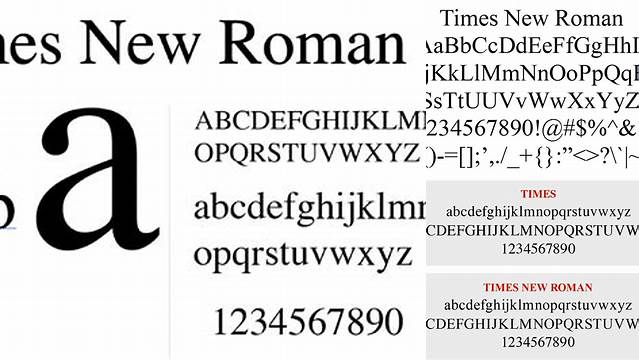
Time New Roman: The Font You Need To Know
Hey guys! Ever wondered about that one font that seems to be everywhere? You know, the one that's classic, maybe even a little…controversial? We're talking about Time New Roman, of course! This font has a seriously interesting story, and it's way more versatile than you might think. So, let's dive deep into everything Time New Roman, from its history to how you can use it like a pro. Get ready to become a font aficionado!
History of Time New Roman
So, where did Time New Roman even come from? It wasn't just poofed into existence, you know! Its origins are pretty fascinating, actually. Back in the early 1930s, the British newspaper The Times wasn't too happy with their existing typeface. They thought it was a bit clunky and not super readable. Thus began the quest for a new font that was both elegant and easy on the eyes. Stanley Morison, a typographic consultant, was brought in to tackle this challenge. He, along with the artist Victor Lardent, meticulously crafted what would become Time New Roman. The design was heavily influenced by a font called Plantin, but with some key tweaks for enhanced readability. Think of it as Plantin's cooler, more newspaper-friendly cousin. The font made its debut in The Times in 1932 and quickly gained popularity. It was designed to be space-efficient, meaning more words could fit on a page – a big deal for newspapers! Plus, its clean lines and classic serif style gave it a sophisticated feel.
Stanley Morison and the Creation of Time New Roman
The brains behind Time New Roman, Stanley Morison, was a total typography guru. This guy lived and breathed fonts! He understood the nuances of letterforms and how they impacted readability and visual appeal. Morison's approach was rooted in historical research, studying classic typefaces to inform his designs. He believed that a great font should be timeless and functional, not just trendy. His collaboration with Victor Lardent was key to bringing Time New Roman to life. Lardent, a skilled artist in The Times' advertising department, meticulously drew the letterforms, translating Morison's vision into a tangible design. Together, they created a font that balanced tradition and innovation, resulting in a typeface that has stood the test of time (pun intended!). Morison’s influence extends far beyond just Time New Roman; he shaped the way we think about typography and its role in communication. He emphasized clarity and legibility, principles that are still relevant in design today.
Time New Roman's Debut in The Times Newspaper
Imagine the buzz when Time New Roman first hit the newsstands! It was a big deal for The Times newspaper, which had been using the same typeface for decades. The switch to Time New Roman was a bold move, signaling a commitment to modernizing their look and improving readability for their readers. The initial reception was overwhelmingly positive. Readers praised the font's clarity and elegance. It was like a breath of fresh air for the newspaper, giving it a more contemporary feel while still maintaining its authoritative tone. This successful debut in The Times was crucial for Time New Roman's widespread adoption. It proved that the font was not only visually appealing but also highly functional for print media. The association with a prestigious publication like The Times also lent credibility and prestige to the font, solidifying its place in typographic history. This marked a significant shift in newspaper design, influencing other publications to consider the importance of typeface in their overall presentation.
Impact and Popularity of Time New Roman
After its grand debut, Time New Roman didn't just fade into the background; it exploded in popularity! It became the go-to font for all sorts of publications, from books and magazines to academic papers and official documents. Its clean, classic look made it incredibly versatile, fitting in seamlessly in a wide range of contexts. Part of its appeal was its availability. Thanks to its inclusion in Microsoft Windows, Time New Roman became a standard font on computers around the world. This meant that pretty much anyone could use it, which further fueled its ubiquity. But its popularity also sparked some debate. Some designers argued that its overuse made it a bit…boring. Others defended its timelessness and readability. Love it or hate it, there's no denying that Time New Roman has had a massive impact on the world of typography. It has shaped the way we read and write, and its legacy continues to influence design today.
Characteristics and Design Elements
Okay, let's get a little nerdy about the nitty-gritty details of Time New Roman. What makes it tick? What are its defining features? Well, first off, it's a serif font, meaning it has those little decorative strokes at the ends of the letters. These serifs are what give it that classic, traditional look. But Time New Roman isn't just any serif font. It has specific proportions and letterforms that contribute to its readability. The x-height (the height of lowercase letters) is relatively large, making it easier to distinguish between letters. The contrast between thick and thin strokes is also carefully balanced, creating a harmonious and legible appearance. Think of it as the Goldilocks of fonts – not too fancy, not too plain, just right for a wide range of applications. Its design is rooted in the principles of classical typography, emphasizing clarity, balance, and timelessness. This makes it a solid choice for situations where you want to convey professionalism and authority.
Serifs and Their Role in Readability
Those little serifs on Time New Roman? They're not just for decoration, guys! They actually play a crucial role in how we read. Serifs help to guide the eye across the page, creating a visual flow that makes text easier to follow. Think of them as tiny breadcrumbs leading your eyes along each line. This is especially important for long blocks of text, like in books or articles, where readability is key. While sans-serif fonts (fonts without serifs) can be great for headlines and shorter pieces of text, serifs tend to be preferred for body text because they reduce eye strain and improve comprehension. Time New Roman's serifs are carefully designed to be both functional and aesthetically pleasing, contributing to the font's overall elegance and legibility. They're a key part of what makes Time New Roman such a classic and enduring choice for print.
X-Height and Its Impact on Legibility
The x-height might sound like a technical term, but it's actually a pretty important factor in font legibility. It refers to the height of the lowercase letters in a typeface, relative to the uppercase letters. Time New Roman has a relatively large x-height, which means that the lowercase letters are proportionally taller. This makes them easier to distinguish from each other, especially at smaller sizes. A larger x-height contributes to better readability because it reduces the amount of white space within the letters, making them more distinct. This is particularly helpful when reading long passages of text, as it minimizes eye strain and improves comprehension. Fonts with smaller x-heights can sometimes appear cramped and less legible, especially in body text. Time New Roman's well-balanced x-height is one of the reasons why it has been a popular choice for books, newspapers, and other print materials for so long.
Stroke Contrast and Visual Harmony
The way the strokes vary in thickness in Time New Roman – that's the stroke contrast – is another key element of its design. There's a noticeable difference between the thickest and thinnest parts of the letters, but it's not too extreme. This careful balance creates a visual harmony that's pleasing to the eye. Too much contrast can make a font look harsh and difficult to read, while too little contrast can make it appear bland and monotonous. Time New Roman strikes a sweet spot, with enough contrast to create visual interest but not so much that it detracts from readability. This subtle variation in stroke weight adds a touch of elegance and sophistication to the font, contributing to its overall classic appeal. It's a detail that might not be immediately obvious, but it plays a significant role in the font's success.
Time New Roman in Microsoft Word
Ah, Time New Roman in Microsoft Word – a classic combo, right? It's been the default font in Word for ages, which is a big reason why it's so ubiquitous. If you've ever opened a new document in Word and just started typing, chances are you've used Time New Roman without even thinking about it. Its presence in Word has made it incredibly accessible to a wide range of users, from students writing essays to professionals creating reports. But this default status has also contributed to some of the criticism it faces. Some designers argue that its overuse in Word has made it a bit cliché and uninspired. However, its continued presence as a default option speaks to its enduring readability and versatility. It's a font that works well for a variety of documents, making it a safe and reliable choice for many users.
Criticisms and Controversies
Now, let's talk about the elephant in the room: the criticism surrounding Time New Roman. This font isn't universally loved, and it's faced its fair share of controversy over the years. One of the biggest criticisms is its overuse. Because it's been the default font in Microsoft Word for so long, it's become associated with laziness and a lack of creativity. Some designers argue that using Time New Roman is like wearing a beige suit to a party – it's safe, but it's not exactly exciting. Another criticism is its perceived formality. Some people find Time New Roman to be too stuffy and serious, making it less suitable for informal or creative projects. There have even been arguments that it's a